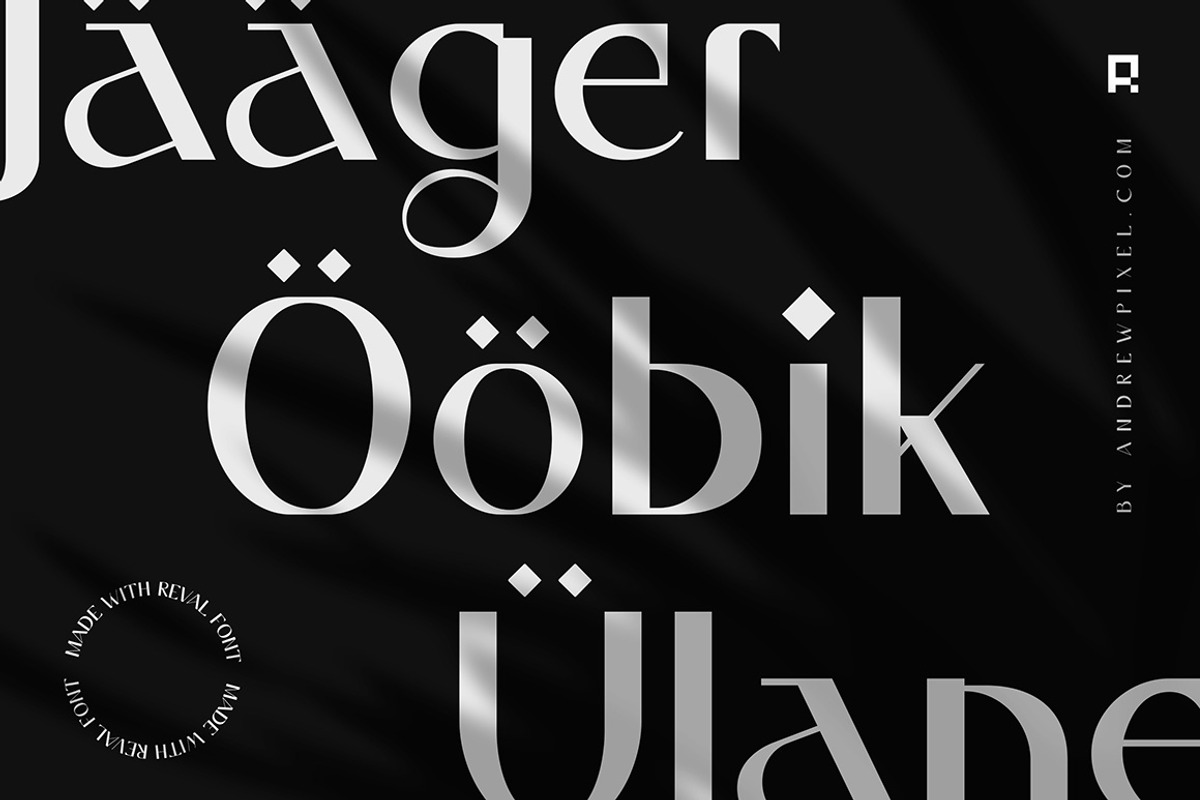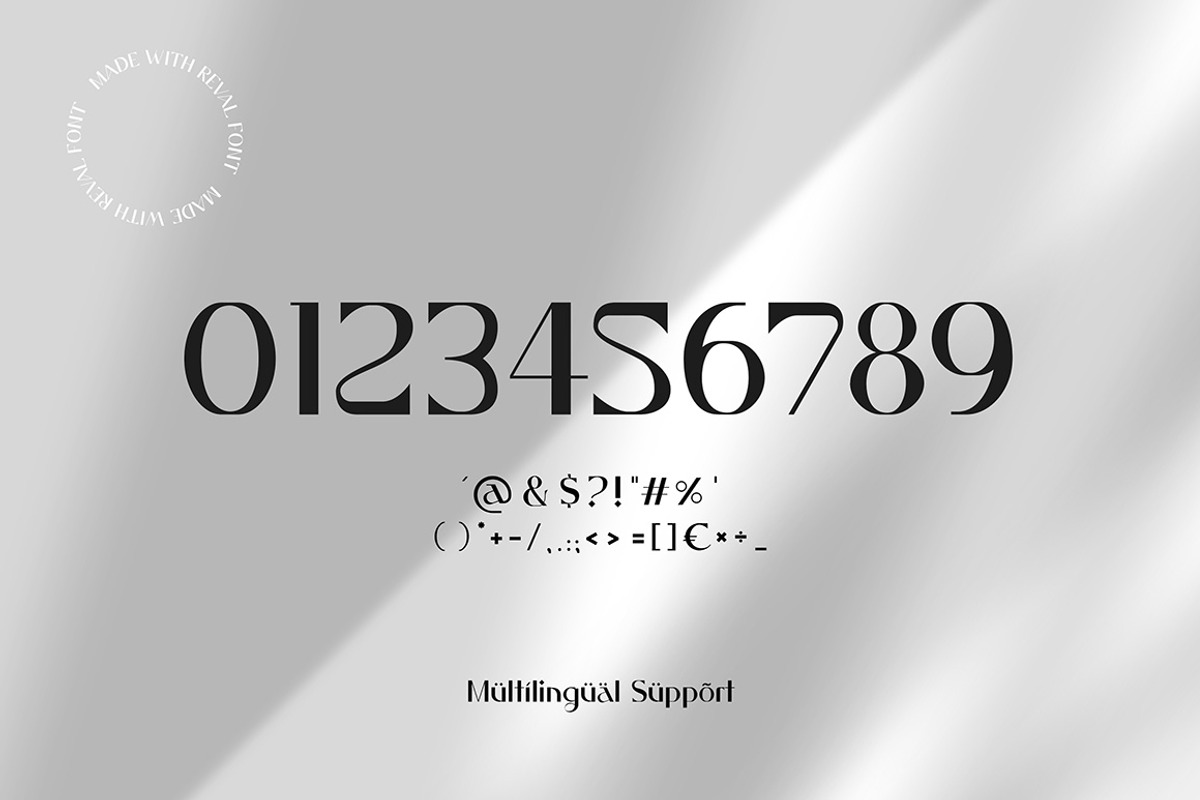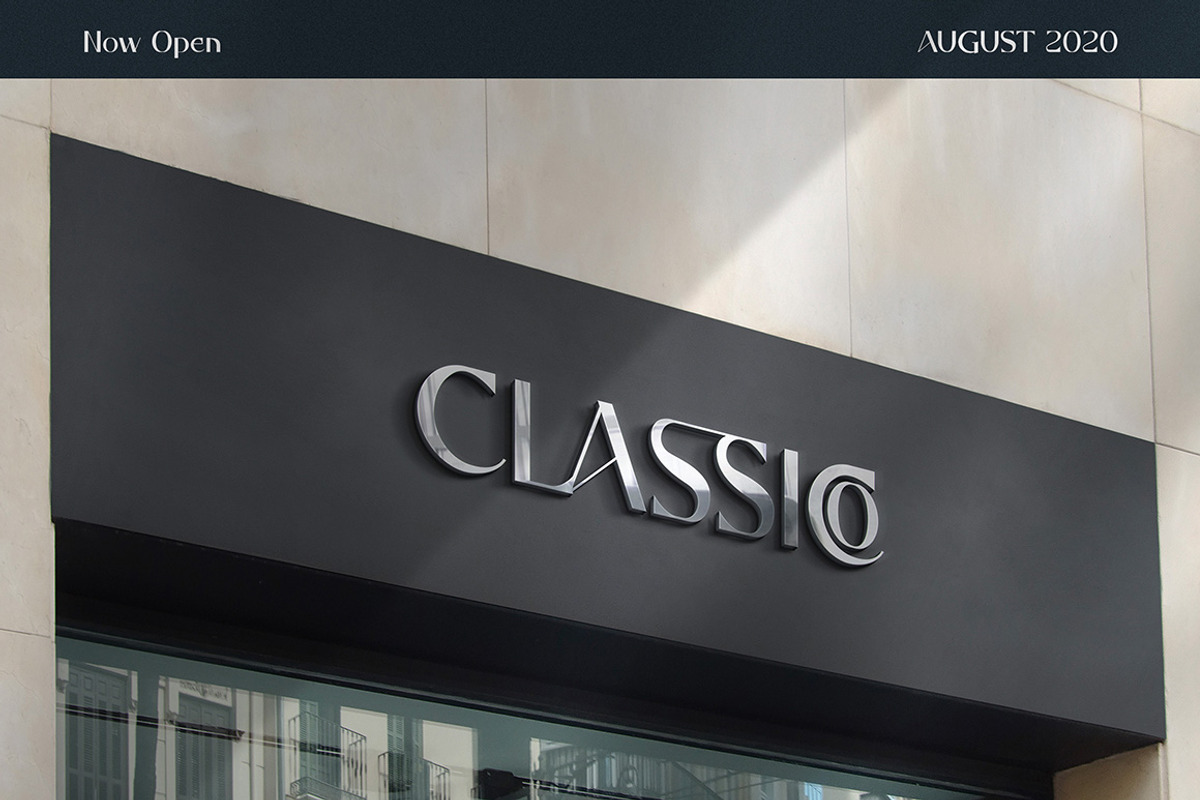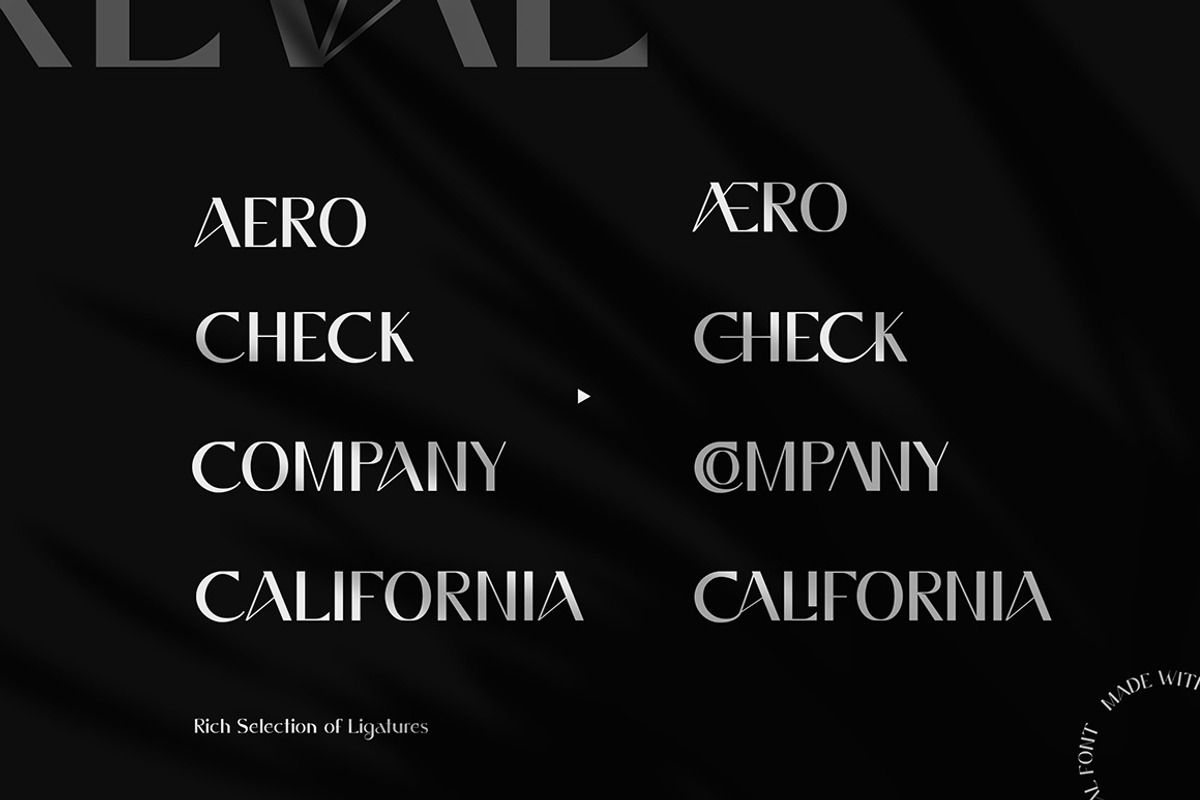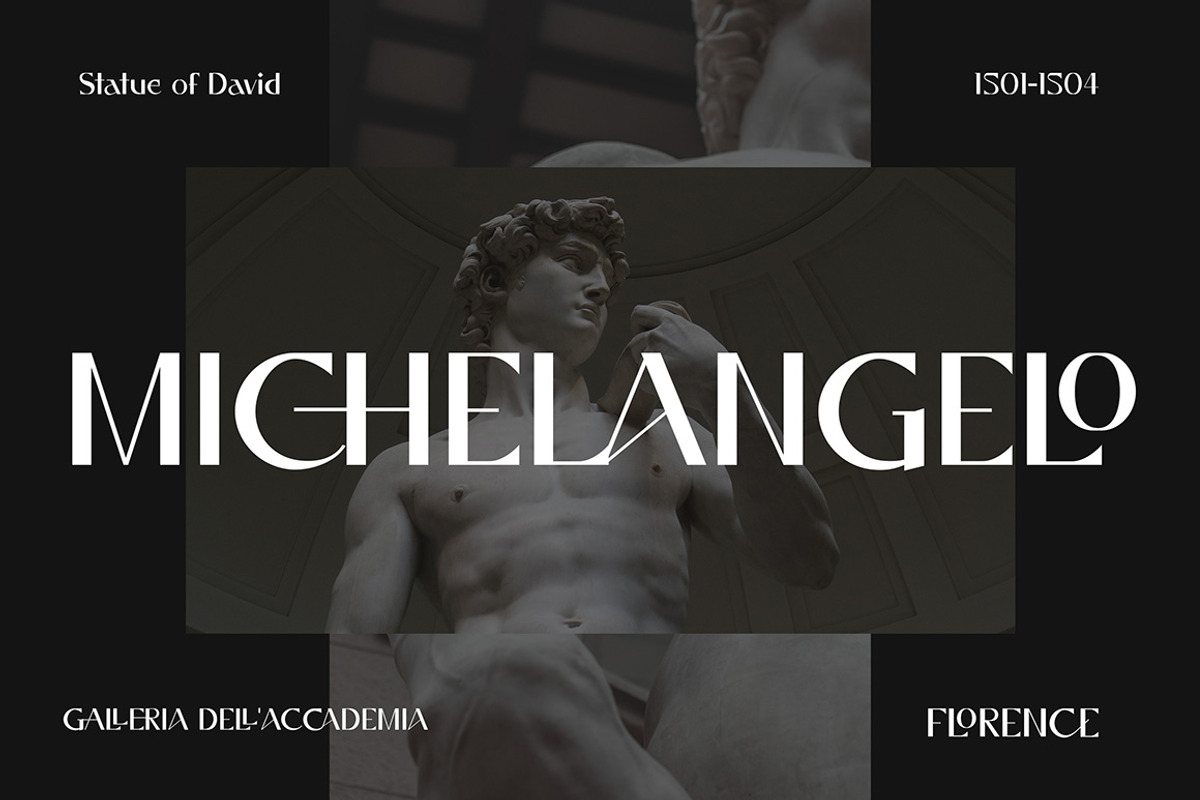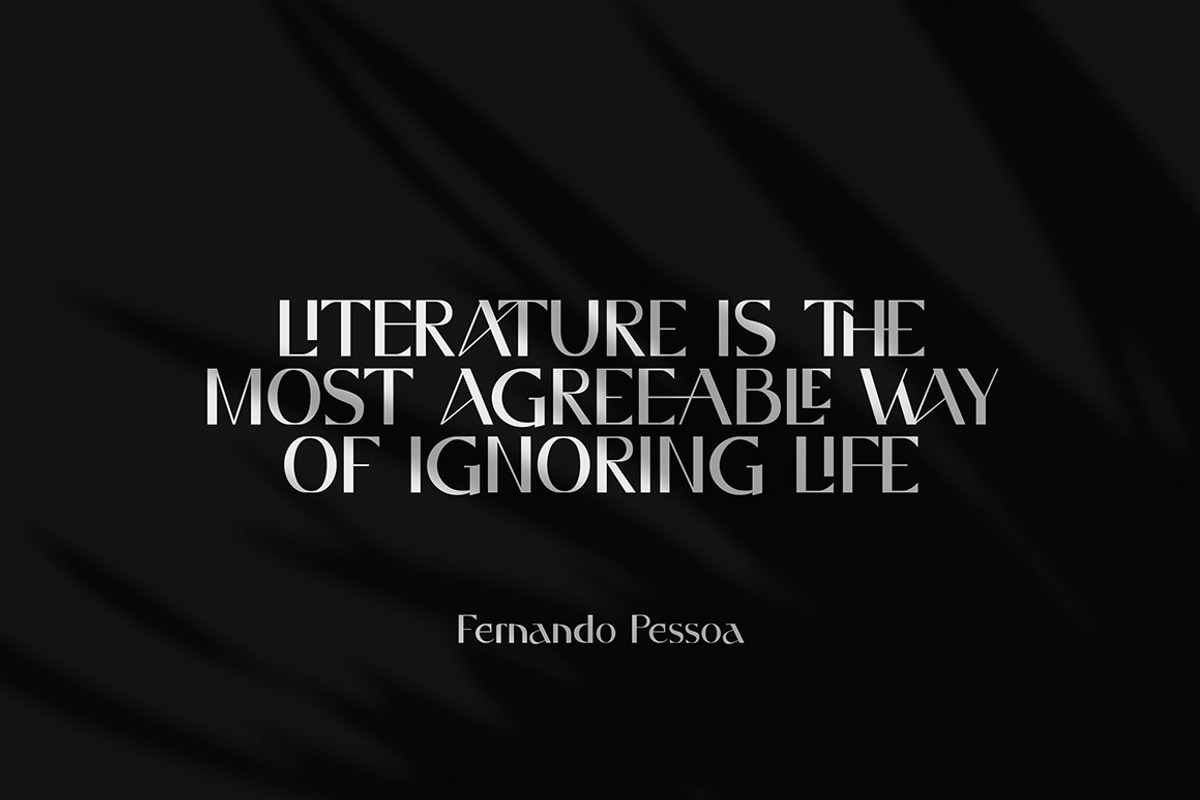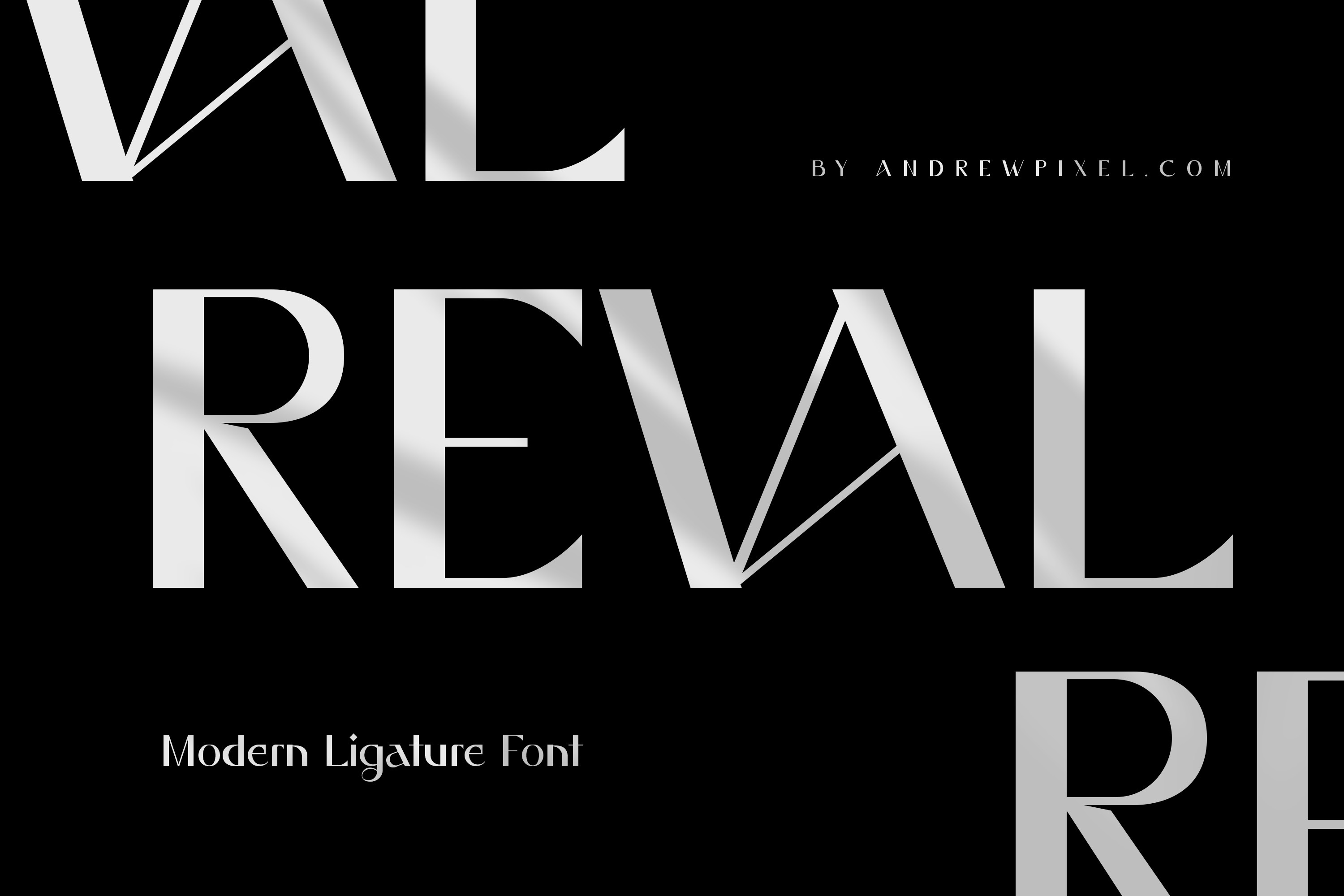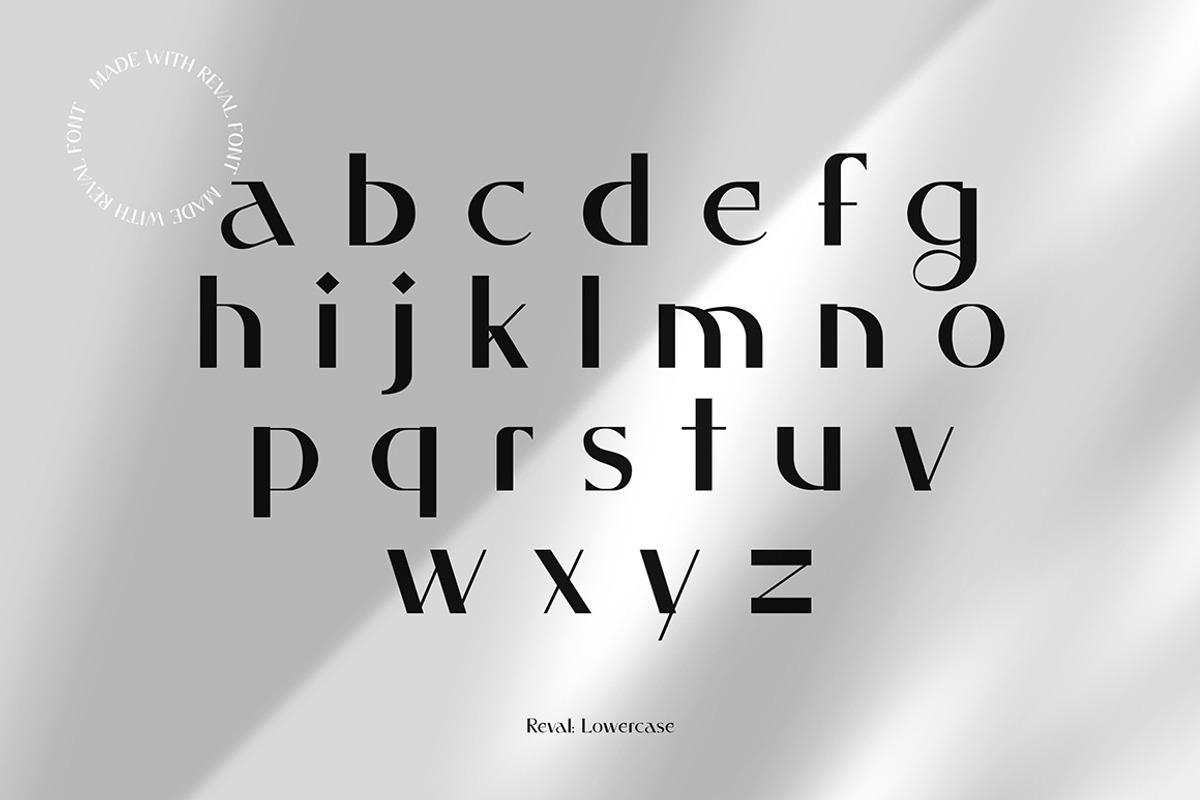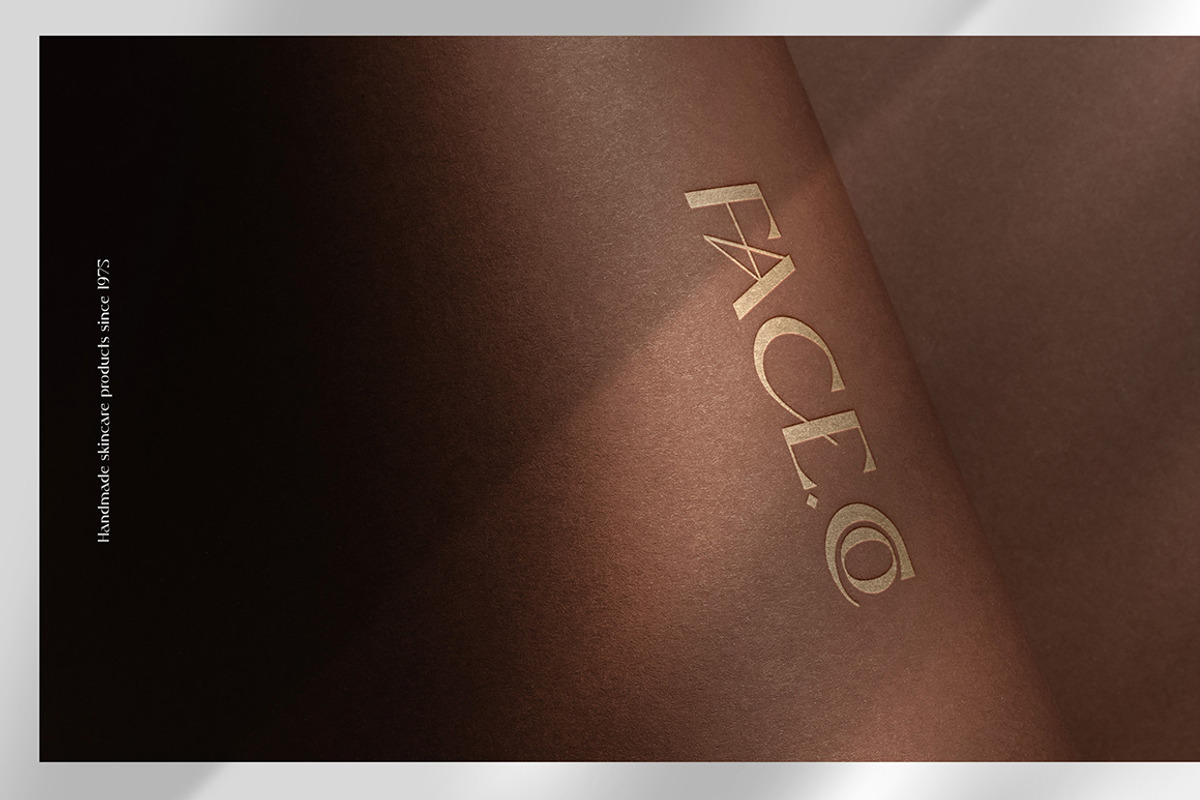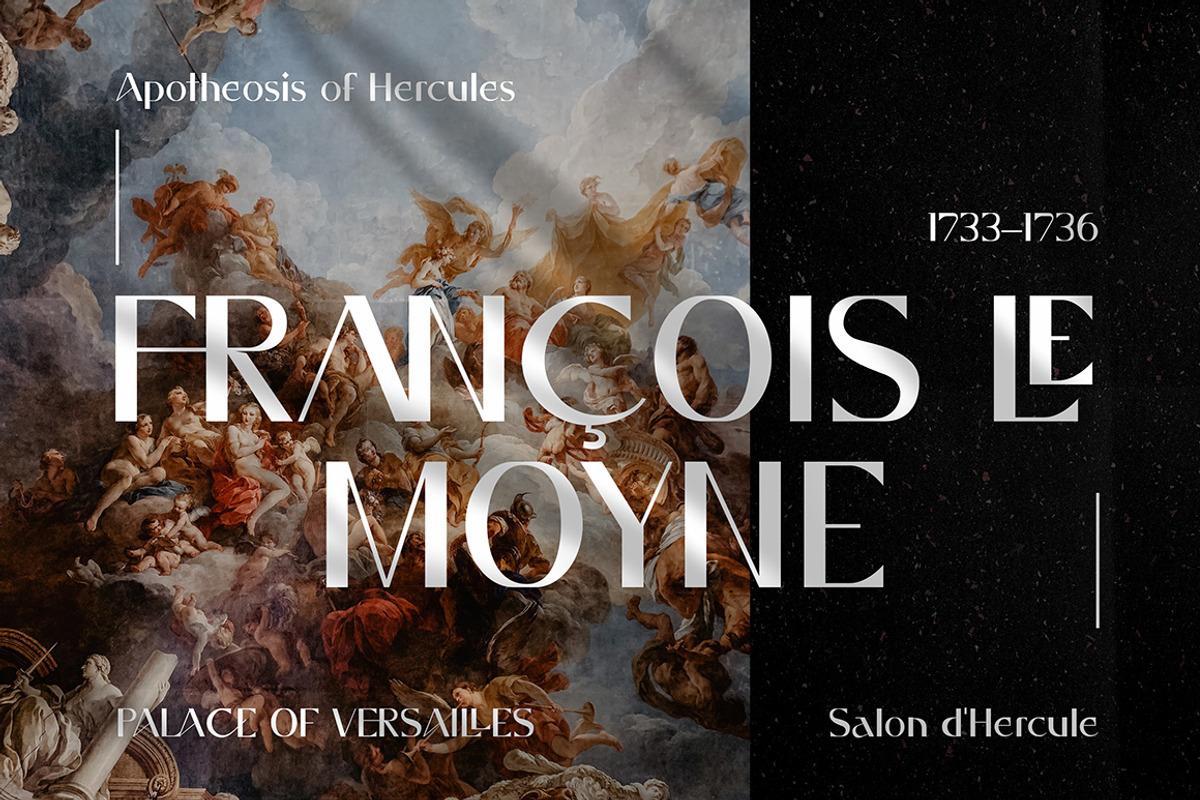
Reval - Modern Ligature Font
Reval is a unique & elegant ligature font with modern clean lines and luxury vibes.
The font is perfect for designing bespoke logos and branding packages. The total of 34 standard ligatures helps you in creating custom-looking solutions that look classy and timeless.